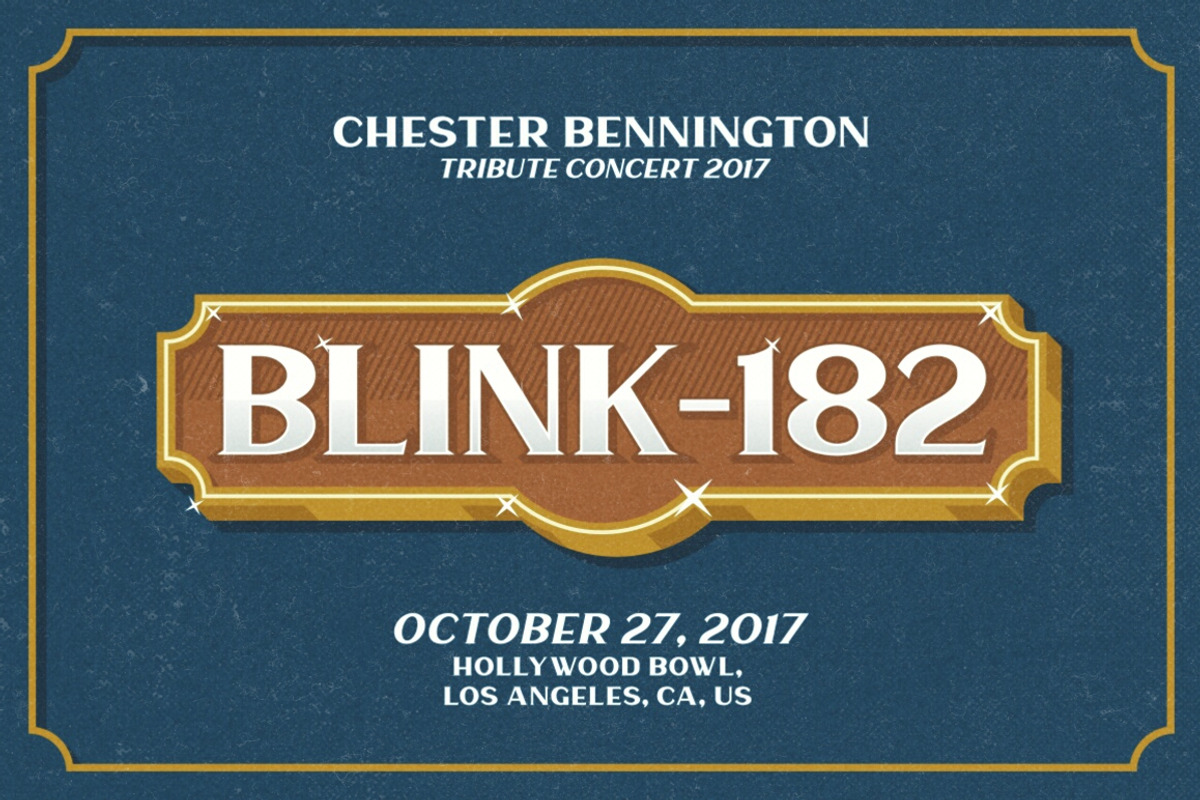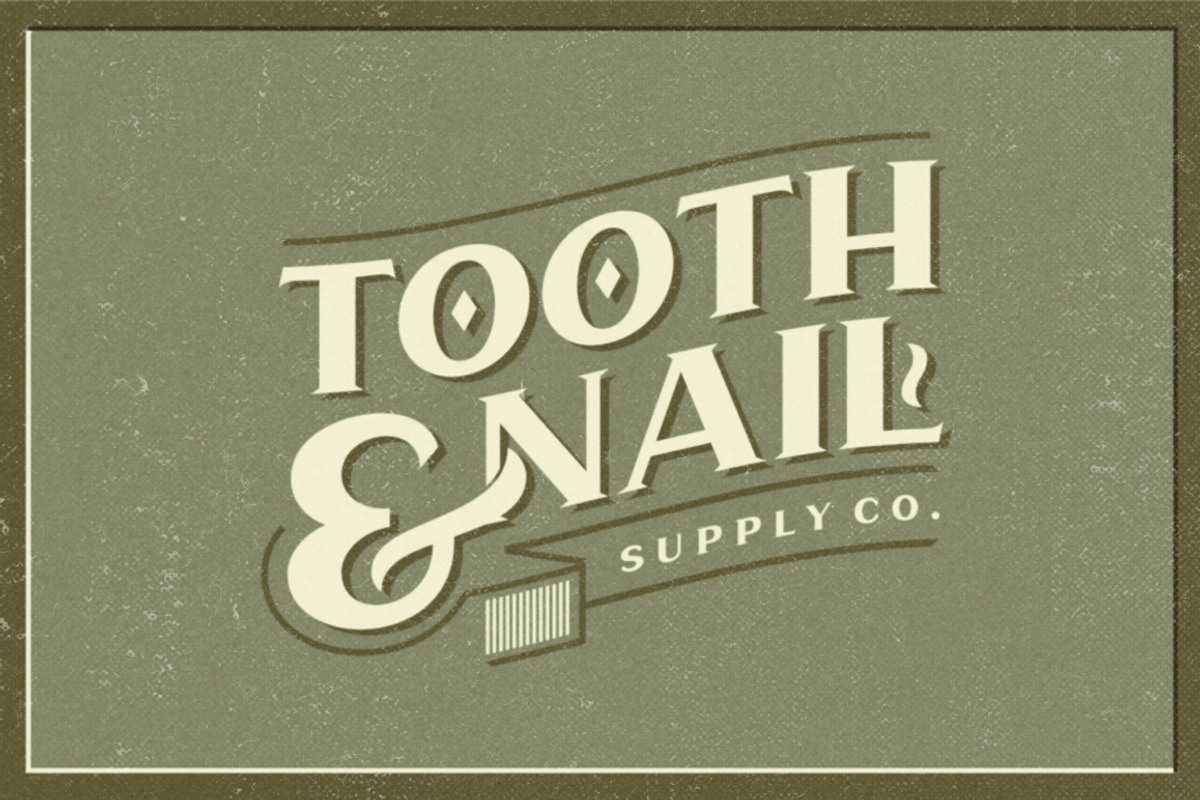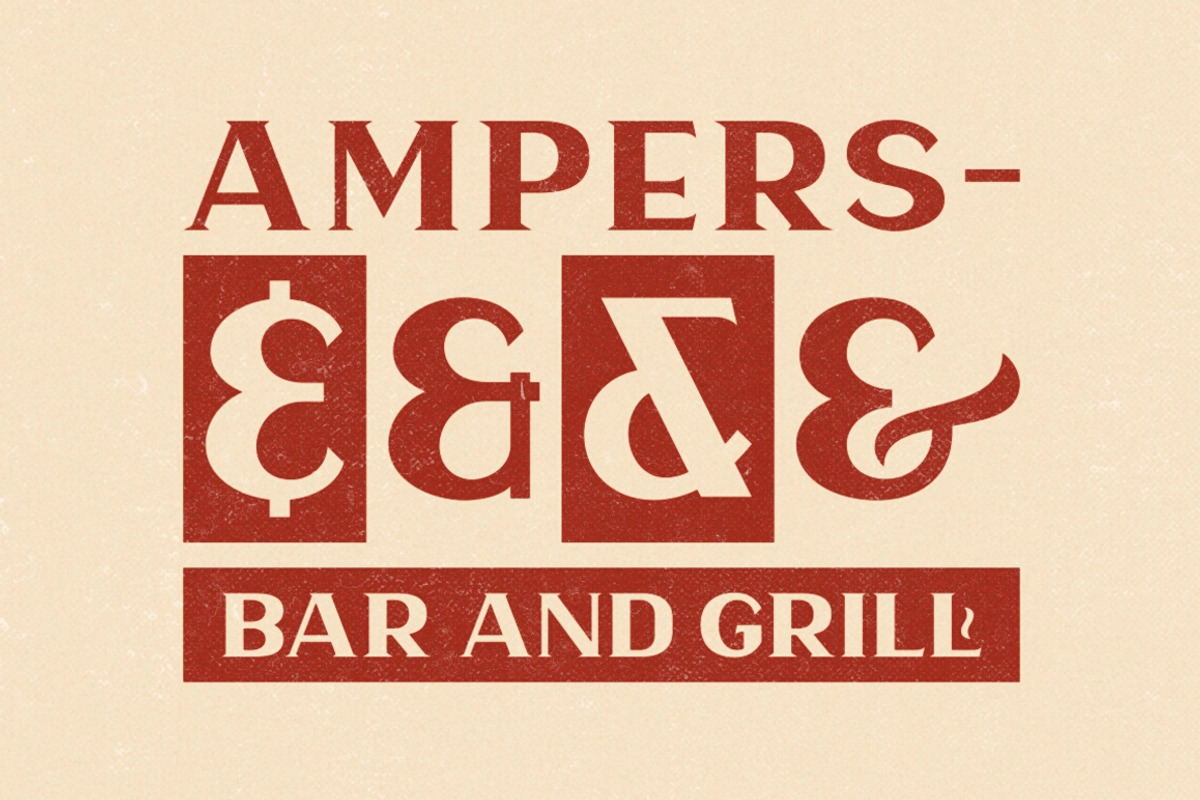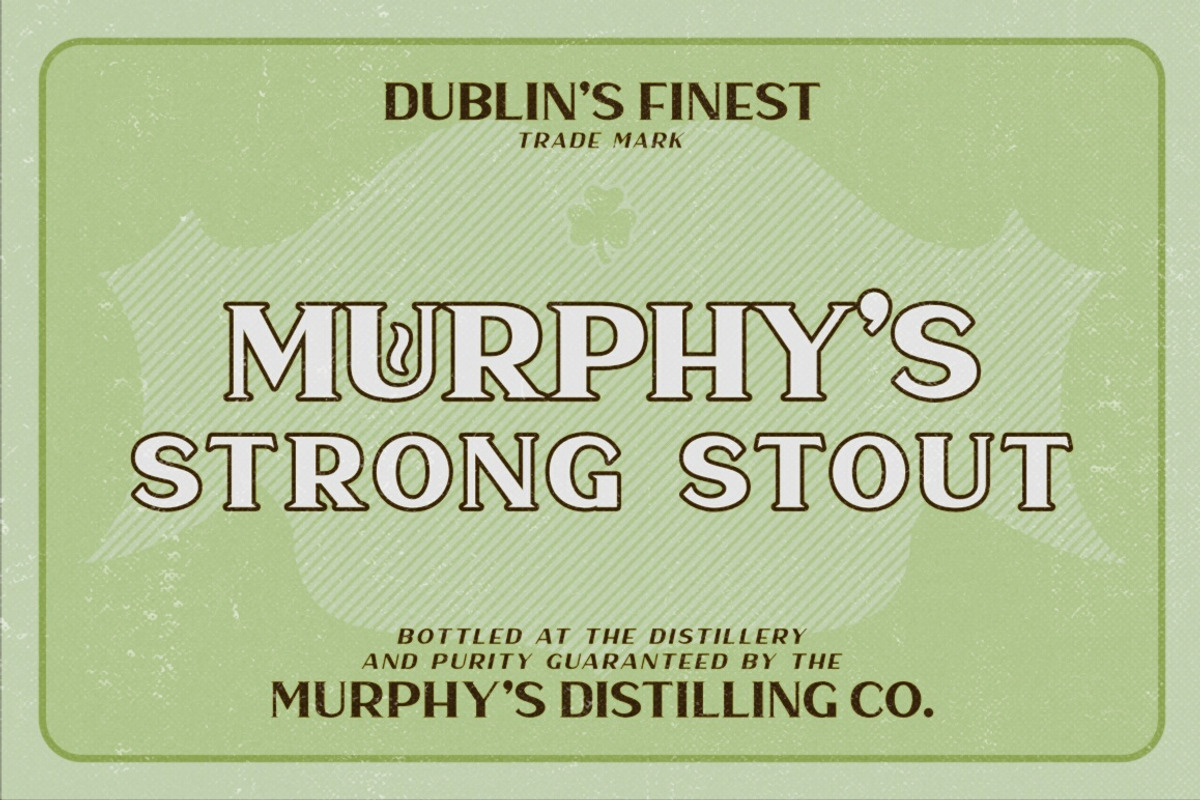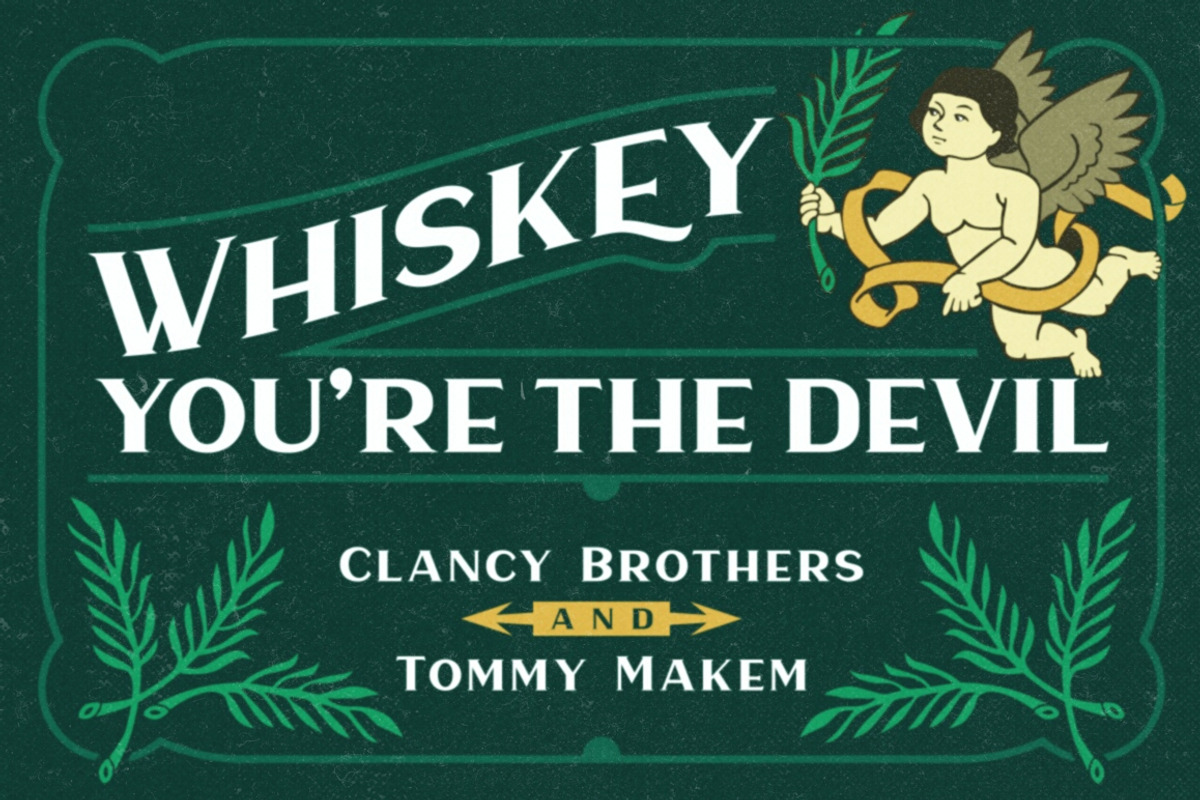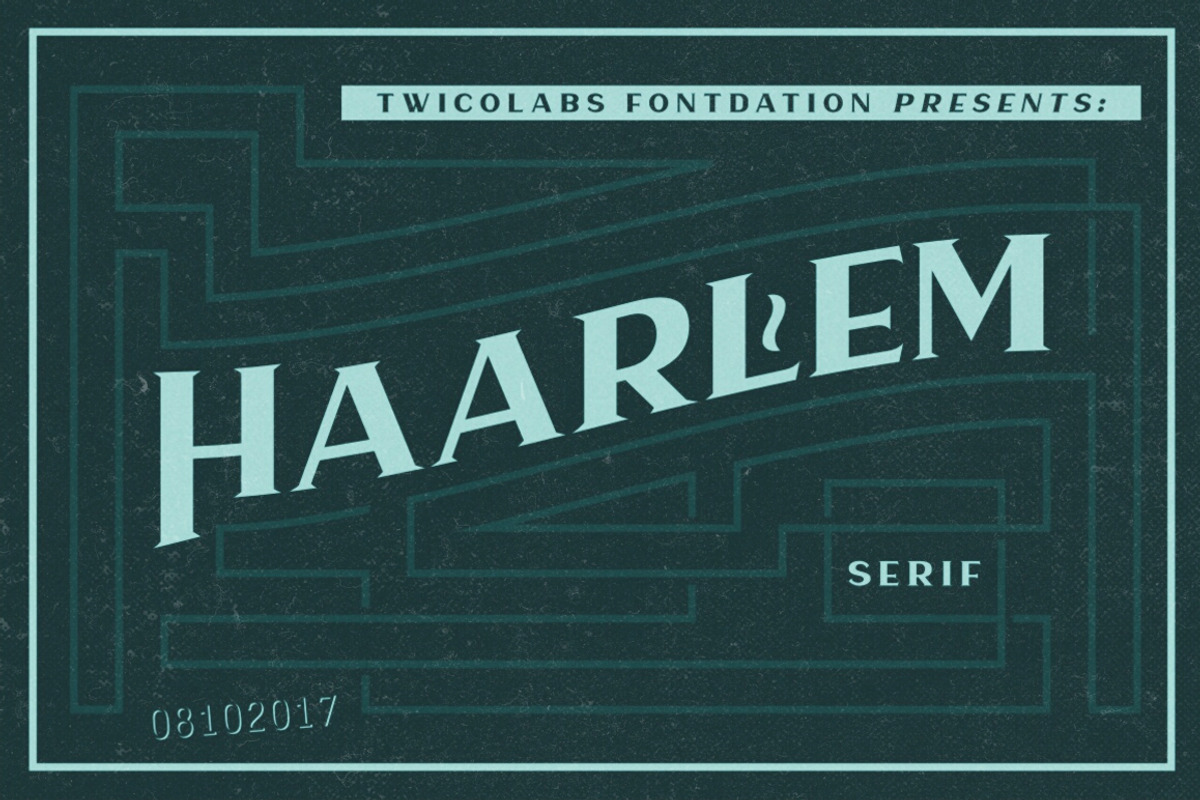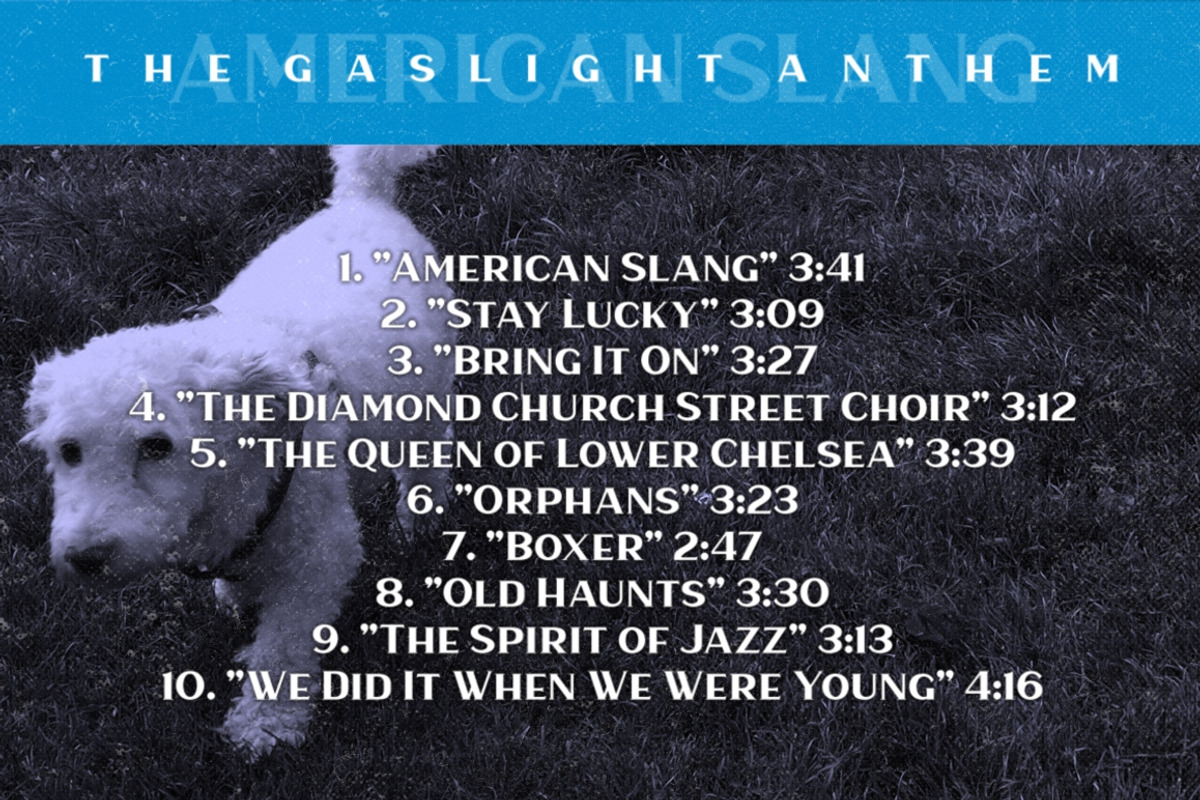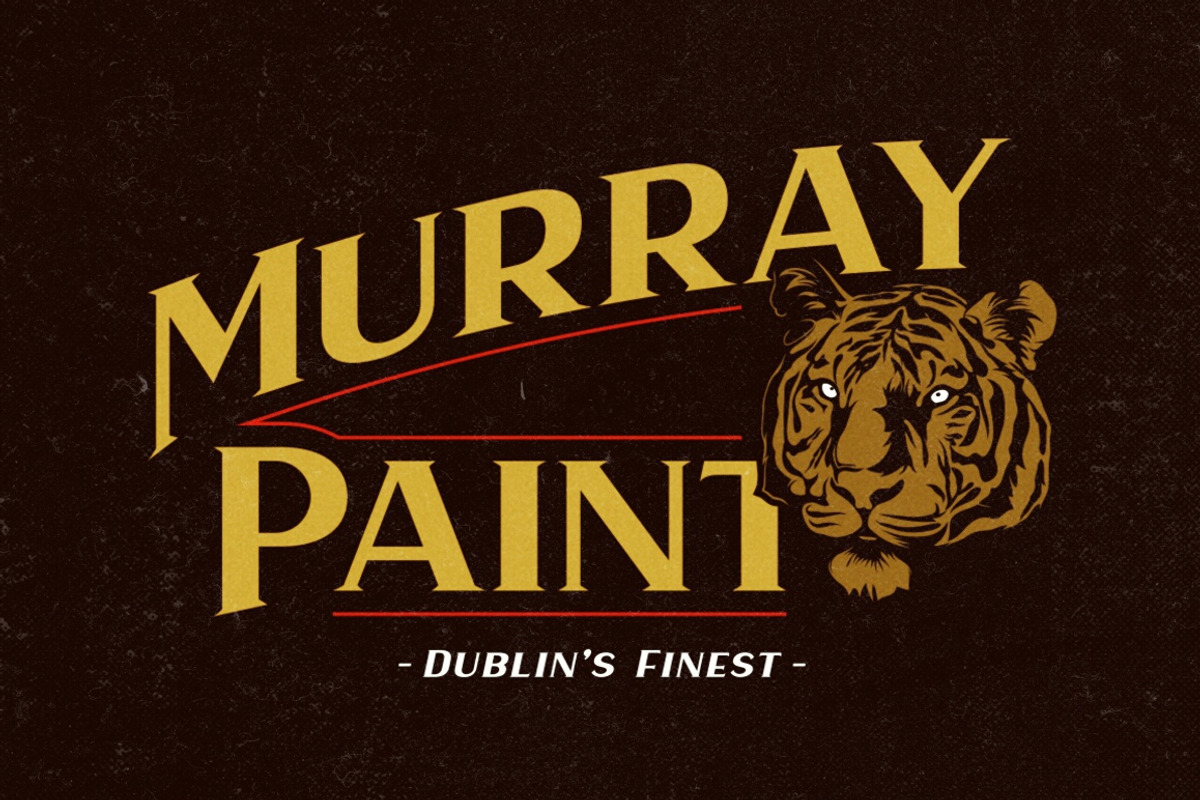
Haarlem Serif
Yo, 'sup. It's time for another family member from Haarlem; Haarlem Serif. The basic form is taken from its older bro, Haarlem Sans (https://crmrkt.com/QkrRDv), a unique combination of fat vertical and thin horizontal lines. This all-caps font suits well for any occasions; its wide form gives you a classic feel, while the serif adds an extra tough-looking feel at the same time. If you're a fan of classic/vintage typography/design, this font is a must have!
- Uppercase, lowercase, numerals, punctuations, currencies, etc,
- Multilingual support,
- Available in two styles; Regular and Italic,
- Alternate characters,